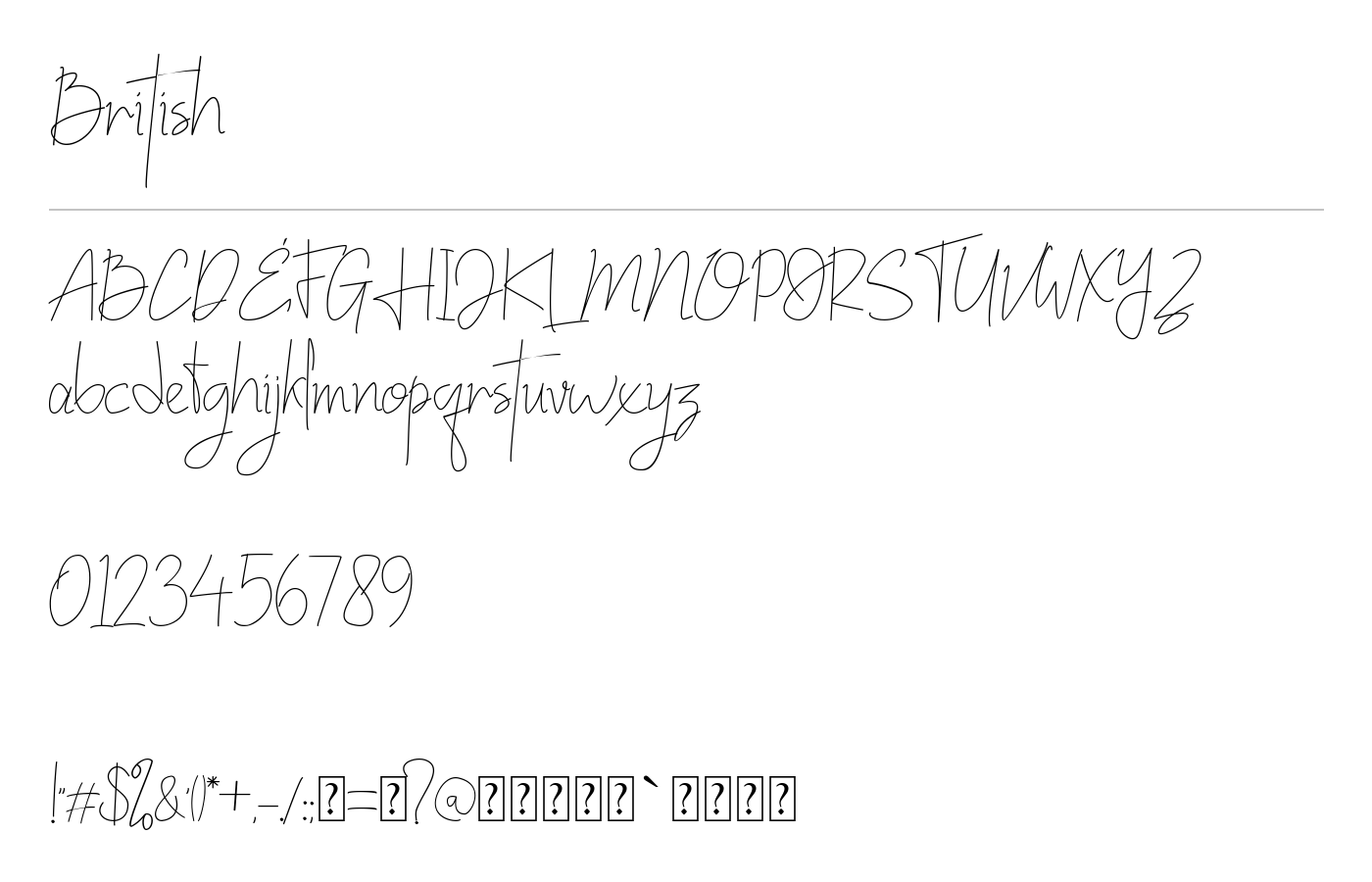
British Font is a delicate, handwritten-style typeface characterized by its tall, narrow letterforms and fine, flowing strokes that evoke an elegant yet casual feel. Its light weight and airy spacing make it ideal for creative, personal branding or artistic projects where a whimsical, sophisticated touch is desired. This font works beautifully in headings, logos, and invitations, lending a unique, modern charm that stands out without overpowering.
British Font
About British Font
| Font family | British Font |